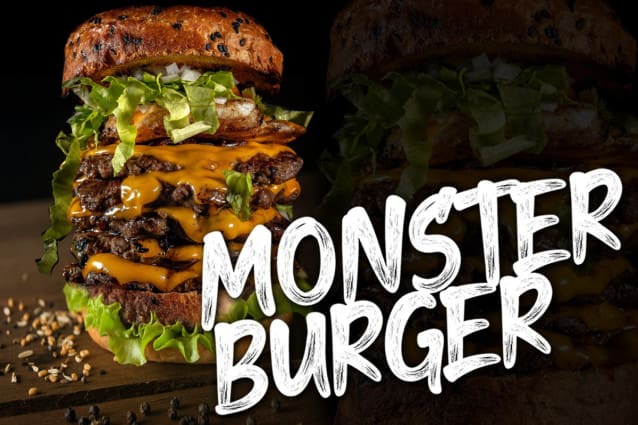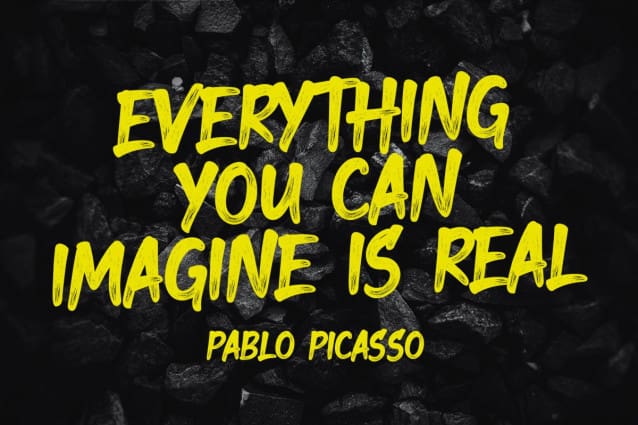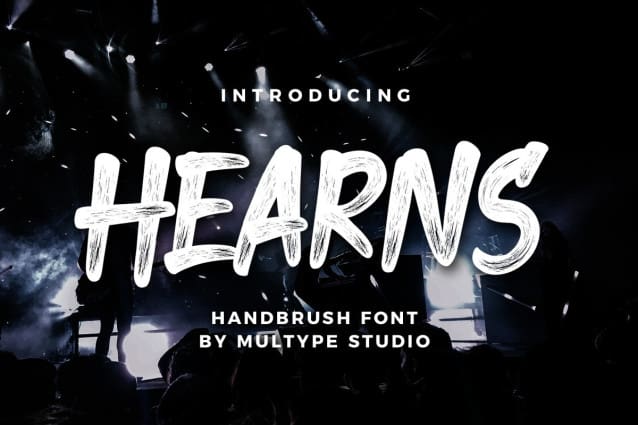
Hearns Brush Font
Hearns Brush Font, is a handbrush font with authentic textures. This font would perfect for logos, branding, product designs, product packaging, photography, watermark, social media posts, advertisements, invitation, stationery, labels, logos, magazines, books, greeting / wedding cards, fashion, make up, and etc.